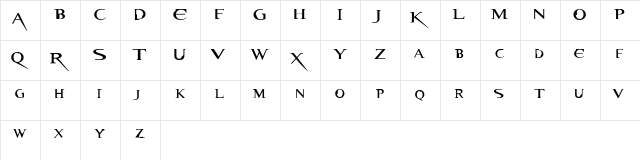
Resident Evil Regular
Design Context for Resident Evil Typeface
Resident Evil is a composed and adaptable typeface that performs quietly and consistently across a wide range of design contexts.